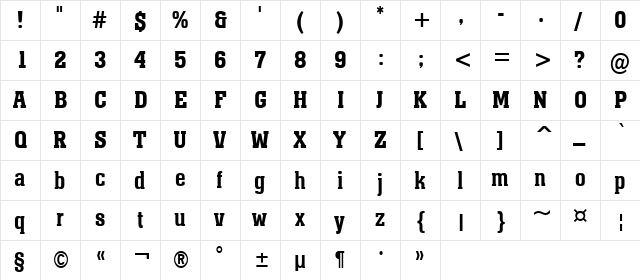
a_MonumentoNr DemiBold
Design Context for a_MonumentoNr Typeface
a_MonumentoNr offers clean, dependable letterforms without strong stylistic allegiance, making it a practical choice for designers who need flexibility. The heavy weight commands attention and anchors typographic hierarchies.